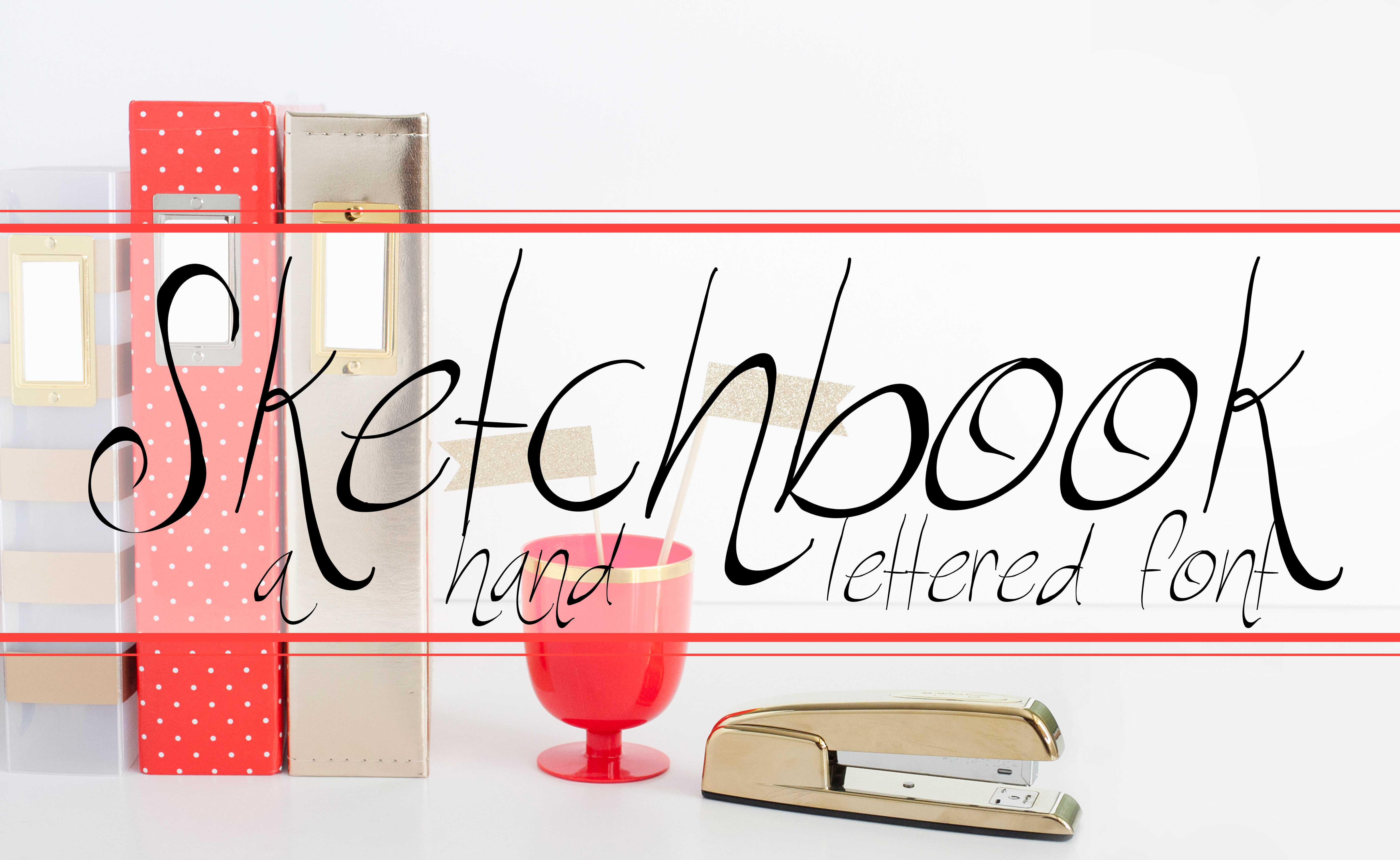
SKETCHBOOK Hand Lettered Font
This hand-lettered Sketchbook font has got its own beauty about it, there's no doubt. Available in a TTF file with a full alphabet, numbers, and symbols.